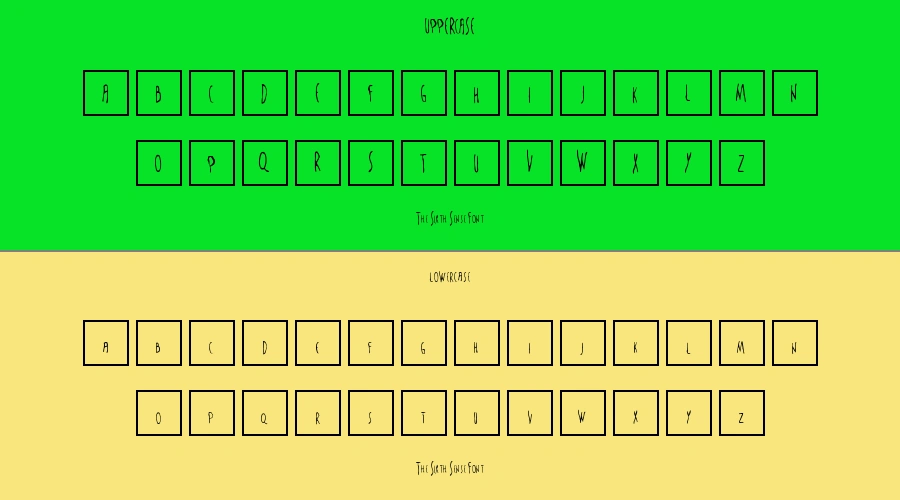
About The Sixth Sense Font
The Sixth Sense Font embodies typographic excellence through its masterful combination of subtle details and performance stability. Created for ceremonial invitations, this typeface delivers exceptional functionality and refinement across all applications. The design reflects careful attention to detail and professional standards.
Advanced capabilities include distinctive clean lines and versatile decorative caps, giving designers creative control. When used in brand logos, The Sixth Sense Font exhibits remarkable headline impact. The harmonious balance between bowl width and technical tradition sets this typeface apart.